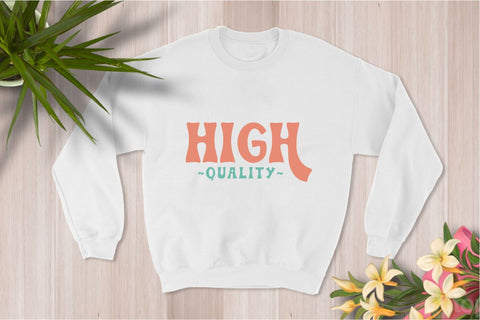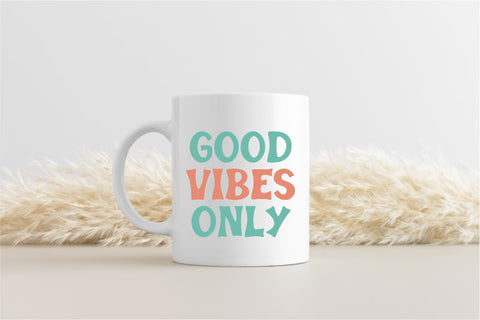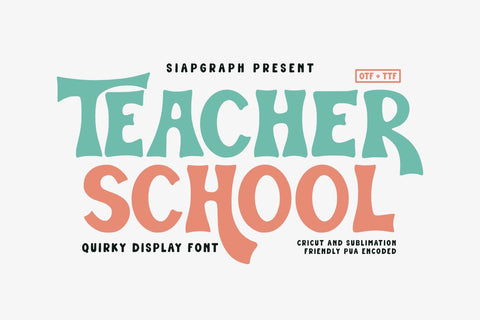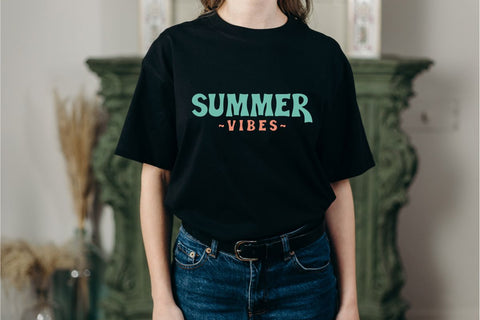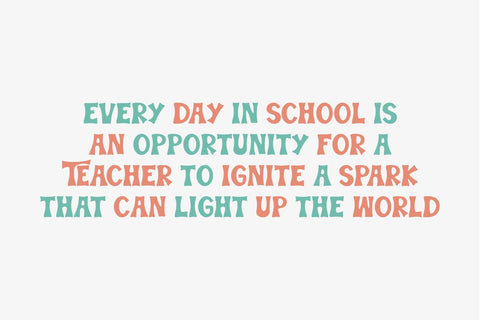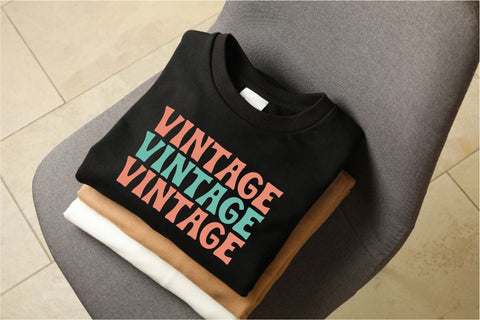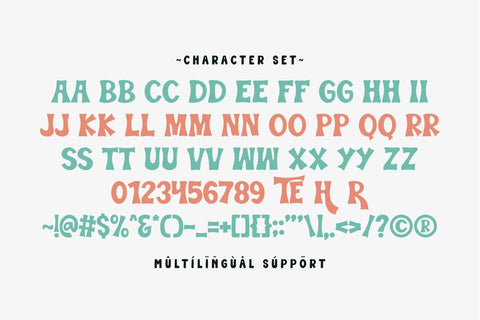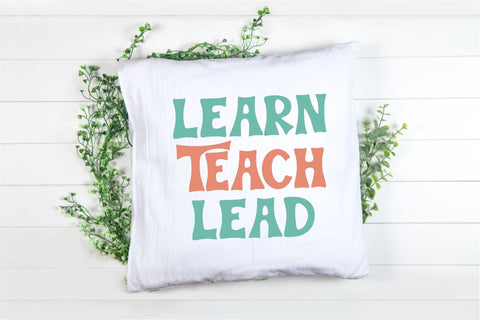
Teacher School - Vintage Quirky Halloween Font
Teacher School is a quirky display font that is fun and versatile, perfect for all educational, kids, halloween, and craft-themed designs! The playful and unique letter design makes it a perfect choice for sublimation products, t-shirt printing, tote bags, mugs, stickers, and classroom decor. With PUA Encoded support, this font is compatible with Cricut, Silhouette, and other design software. Ideal for Etsy sellers, print on demand designers, and creative teachers who want to make learning more engaging!